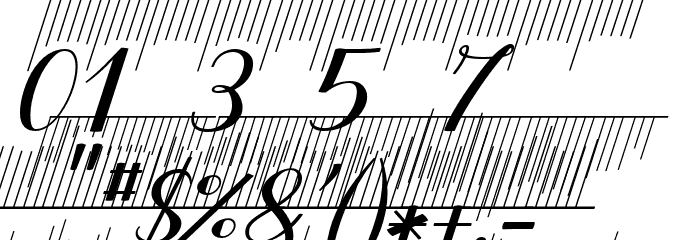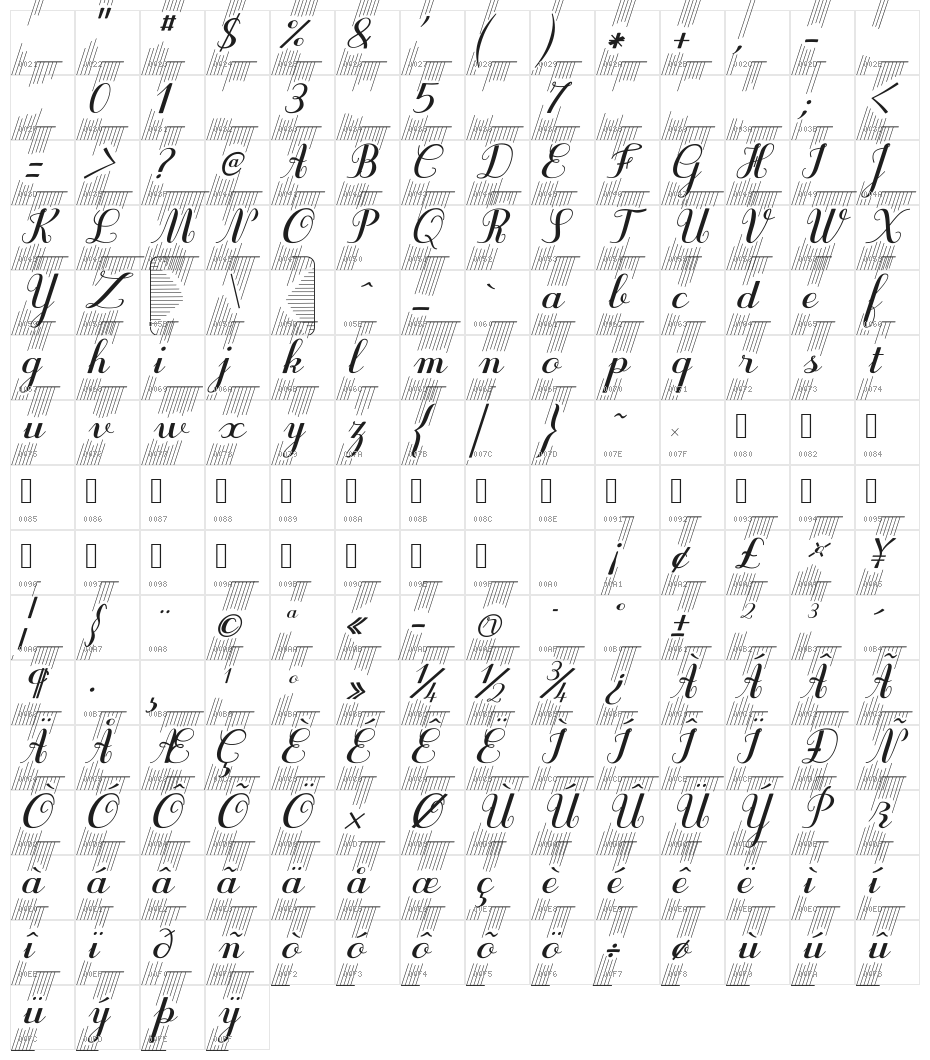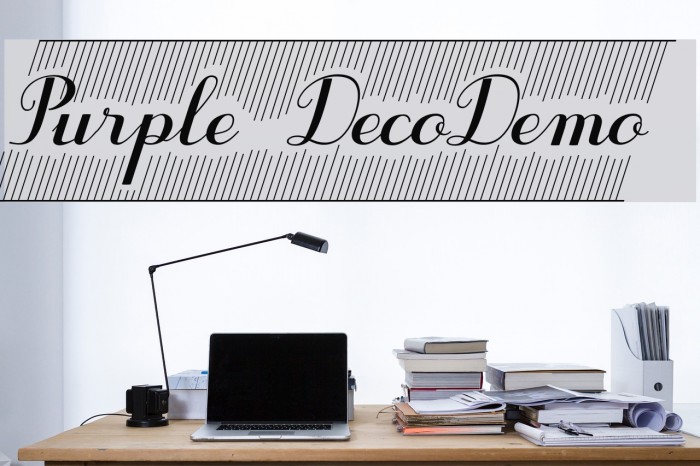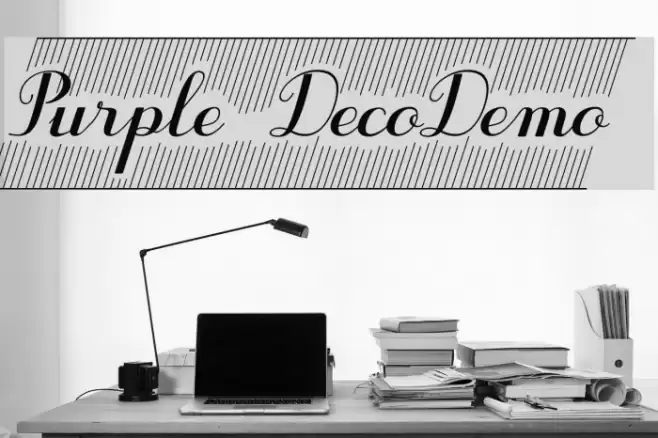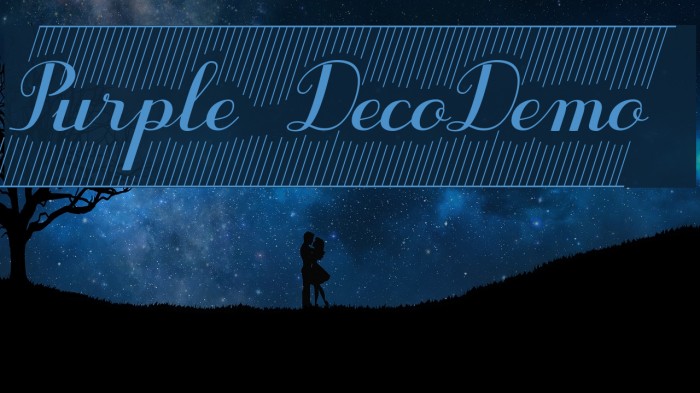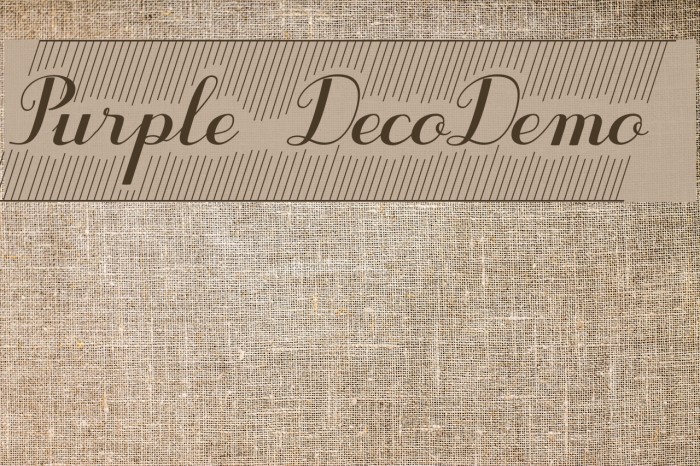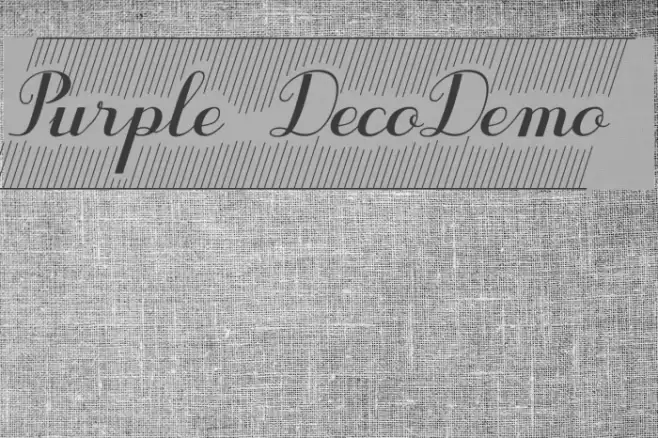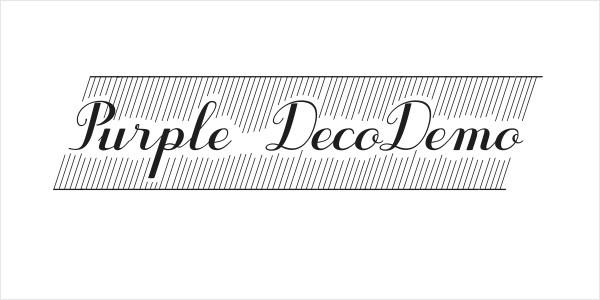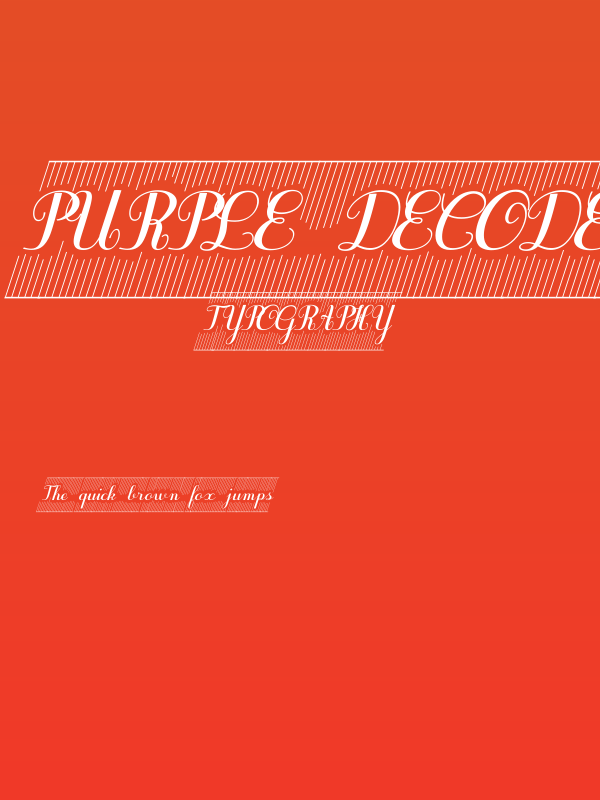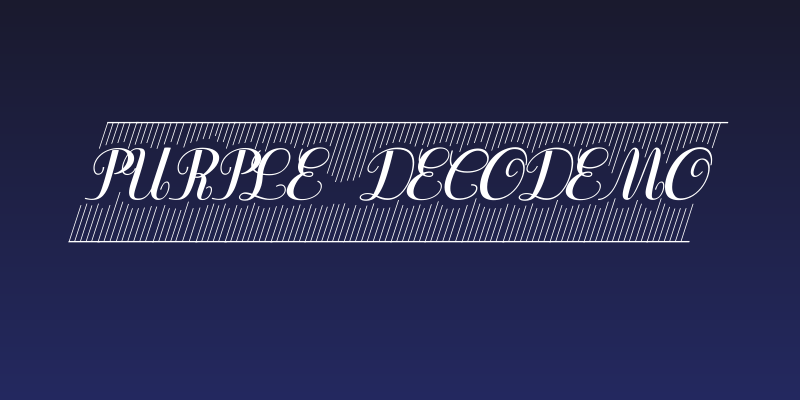
Purple DecoDemo Font
Purple DecoDemo Description
This elegant script font features a sophisticated and flowing design, characterized by its graceful curves and intricate details. The uppercase letters exhibit a refined flourish, while the lowercase letters maintain a consistent and smooth connection, enhancing readability. The numerals and special characters are crafted with the same attention to detail, ensuring a cohesive look across all elements. The font's overall aesthetic is reminiscent of classic calligraphy, making it suitable for projects that require a touch of elegance and sophistication.
Overall StyleClassic
Use CaseLogos, Invitations, Decorative text
Proposed ProjectsIdeal for wedding invitations, formal event programs, luxury branding, and elegant packaging designs.